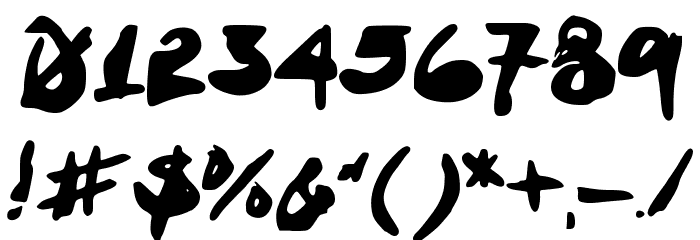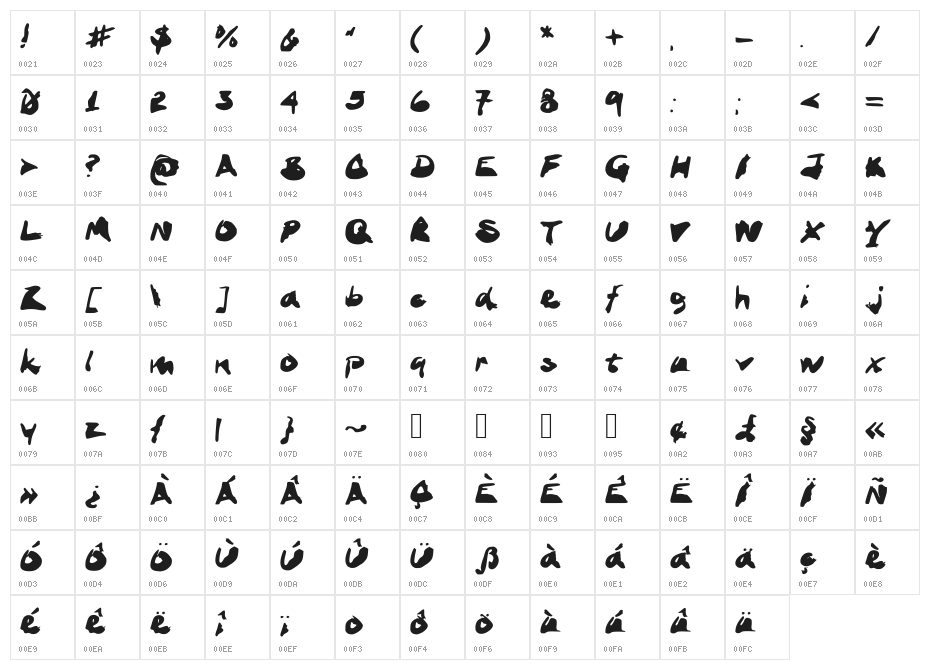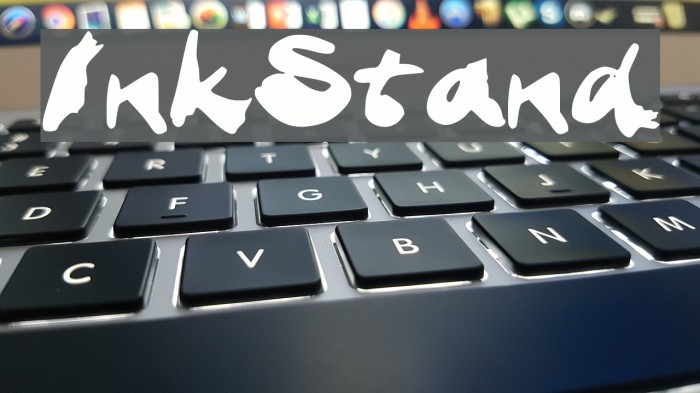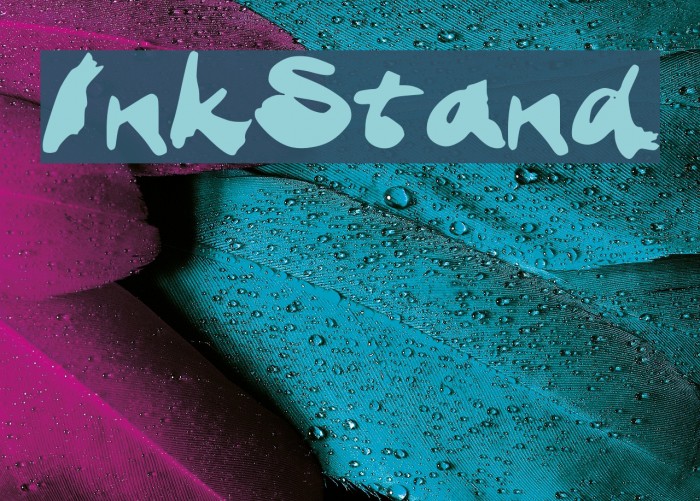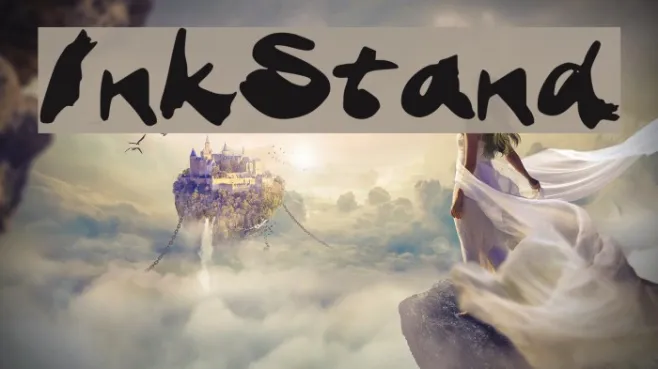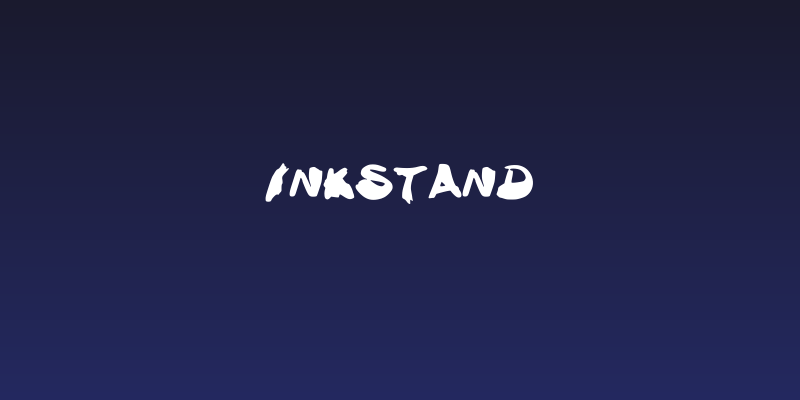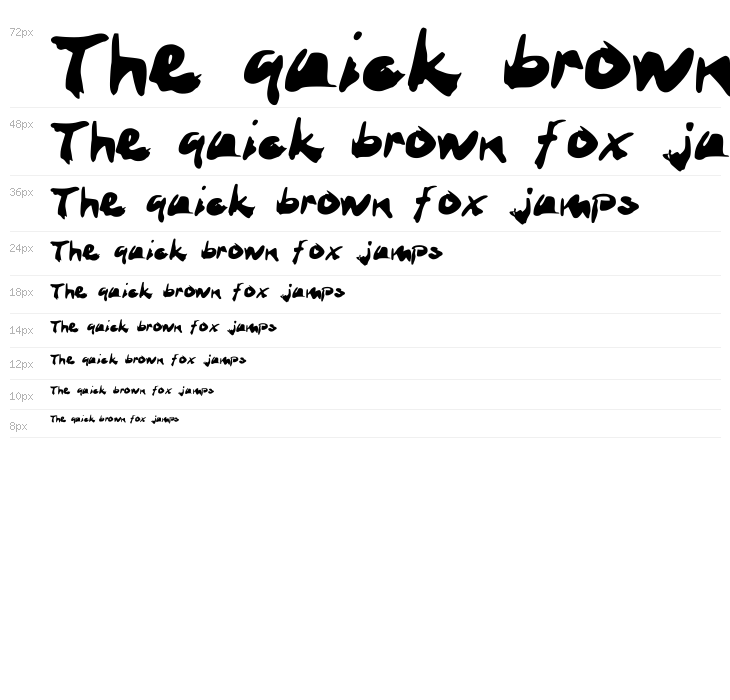
InkStand Font
InkStand Description
This font features a bold, expressive style reminiscent of brush strokes or ink splatters. The characters are dynamic and fluid, with varying thickness that adds a sense of movement and energy. The uppercase and lowercase letters maintain a consistent style, with a slightly irregular baseline that enhances the handwritten feel. Numbers and special characters are equally bold and expressive, making them stand out. The overall appearance is artistic and informal, suitable for creative projects that require a personal touch.
| Proposed Projects | Ideal for artistic projects, posters, album covers, or any design requiring a bold, personal touch. |